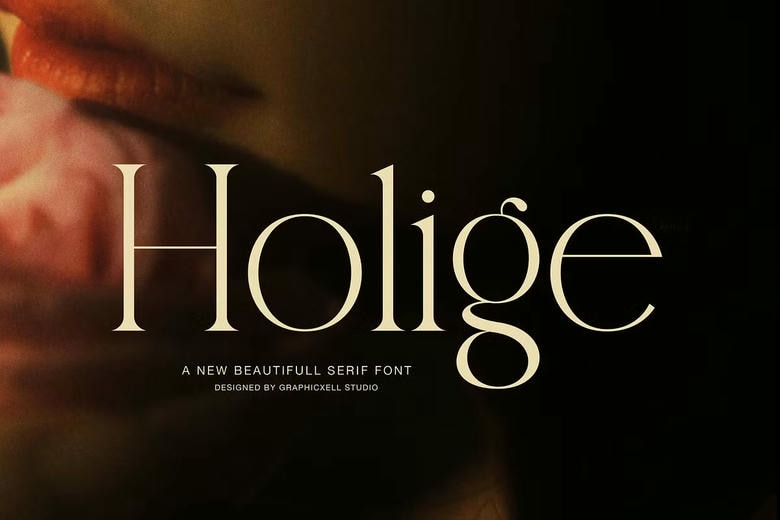
Holige Font
Holige is an elegant graceful serif typeface which aims to provide eternal beauty to contemporary design. The tall proportions, fine contrast, and graceful curves of this font make one feel luxurious and relaxed immediately. Furthermore, the minute details make all words look professional and refined, which makes them suitable to premium branding.
Holige is light and airy unlike many other serif fonts, which are heavy. The straight lines harmonize with rounded ends and terminals, and hence headlines appear elegant without being too dominating. Moreover, the large spacing enhances the readability, a factor that makes your designs appear clean on both the print and the screen.
Holige sounds ideal in a wide range of creative work, particularly in the areas where a soft but quality sound is required. It, say, is beautiful on fashion editorial, boutique logos, hotel branding, café menus, art gallery, wedding invitation, and lifestyle packaging. Due to its sophisticated character, it also improves social media posts, web pages headings, and advertisement designs.
The other benefit is that it is versatile. You may use Holige with simply minimalistic sans-serif fonts to create a current contrast or blend it with script fonts to create a romantic appearance. Consequently, designers will have the ability to be flexible but still feel the same quality premium.
Holige Serif Font